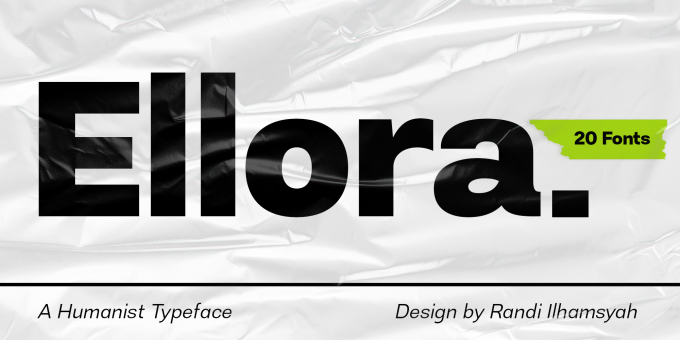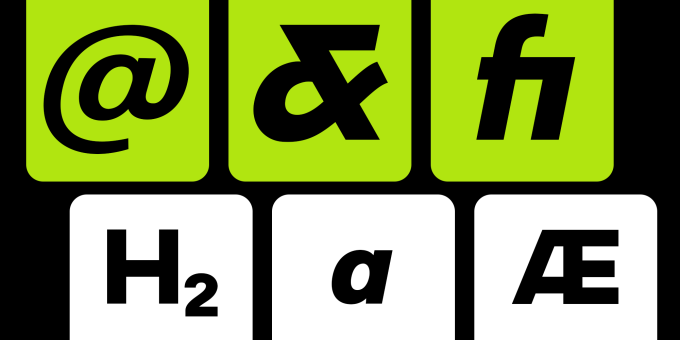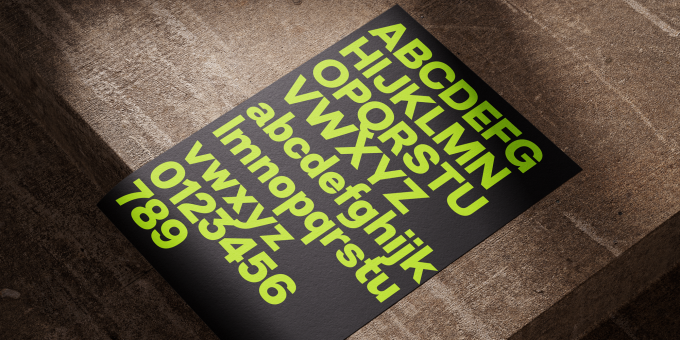
Ellora Humanist Typeface
Ellora Humanis Typeface, a captivating piece of typographic art, depicts a harmony between traditional elegance and modern simplicity. With a mesmerizing design, each letter is a carefully carved work of art, creating a stunning yet easily understandable appearance.
The combination of sans-serif style with a human touch elevates Ellora beyond a mere set of letters. Every curve and angle is meticulously chosen to create a captivating visual harmony, making it the perfect choice for designs that prioritize clarity and elegance.
With balanced letter heights and precision in every detail, Ellora establishes a timeless classical ambiance that is invaluable. It's more than just a font; it's an expression of beauty that transcends words. With each character, Ellora radiates timeless magnificence and undeniable relevance in contemporary design.
As you explore each letter, you'll feel the profound artistic beauty, inviting you to reflect on the richness of aesthetics and tranquility offered by this perfect typography. Ellora is not just a communication tool; it's a living work of art, telling its beautiful story on every page
The combination of sans-serif style with a human touch elevates Ellora beyond a mere set of letters. Every curve and angle is meticulously chosen to create a captivating visual harmony, making it the perfect choice for designs that prioritize clarity and elegance.
With balanced letter heights and precision in every detail, Ellora establishes a timeless classical ambiance that is invaluable. It's more than just a font; it's an expression of beauty that transcends words. With each character, Ellora radiates timeless magnificence and undeniable relevance in contemporary design.
As you explore each letter, you'll feel the profound artistic beauty, inviting you to reflect on the richness of aesthetics and tranquility offered by this perfect typography. Ellora is not just a communication tool; it's a living work of art, telling its beautiful story on every page